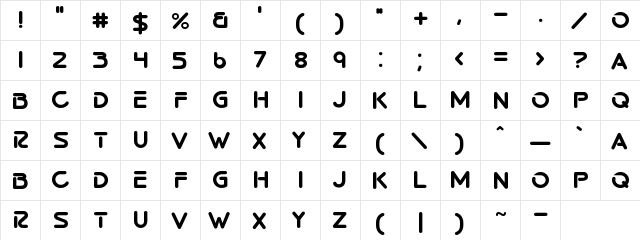
DressingForLess Beta Regular
| Designer | Daniel Lyons / Bill Moore |
Design Context for DressingForLess Beta Typeface
DressingForLess Beta offers clean, dependable letterforms without strong stylistic allegiance, making it a practical choice for designers who need flexibility.